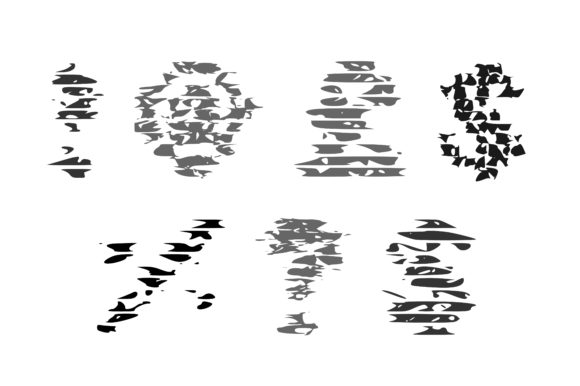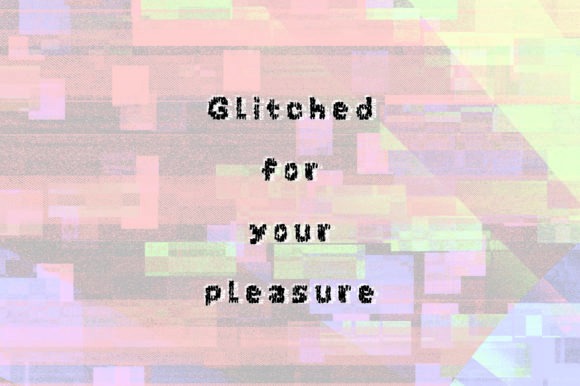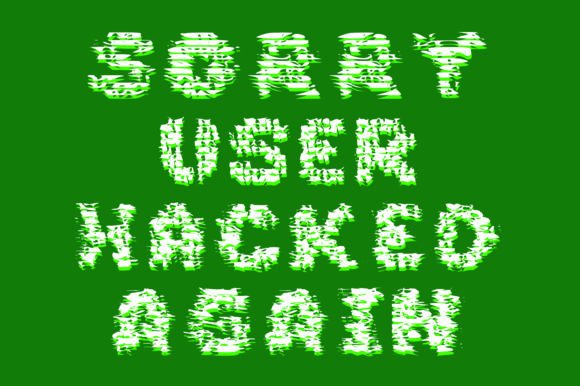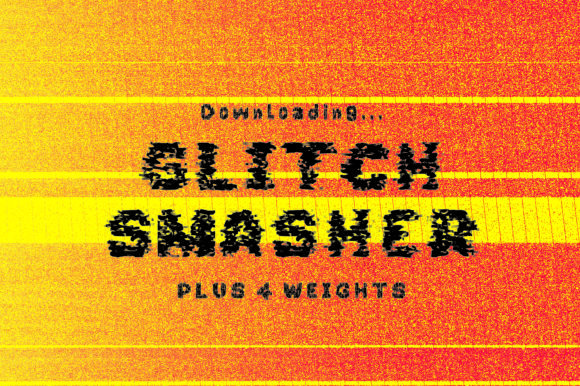
Introduction to Glitch Smasher Font
Glitch Smasher is a bold font with a distinct digital feel.
Use it for any project that needs a technological twist .
Key Features of Glitch Smasher Font
Why Choose Glitch Smasher Font?
Glitch Smasher Font offers exceptional quality and versatility, making it a valuable addition to your design toolkit. Whether you’re creating for personal projects or commercial use, Glitch Smasher Font delivers professional results.